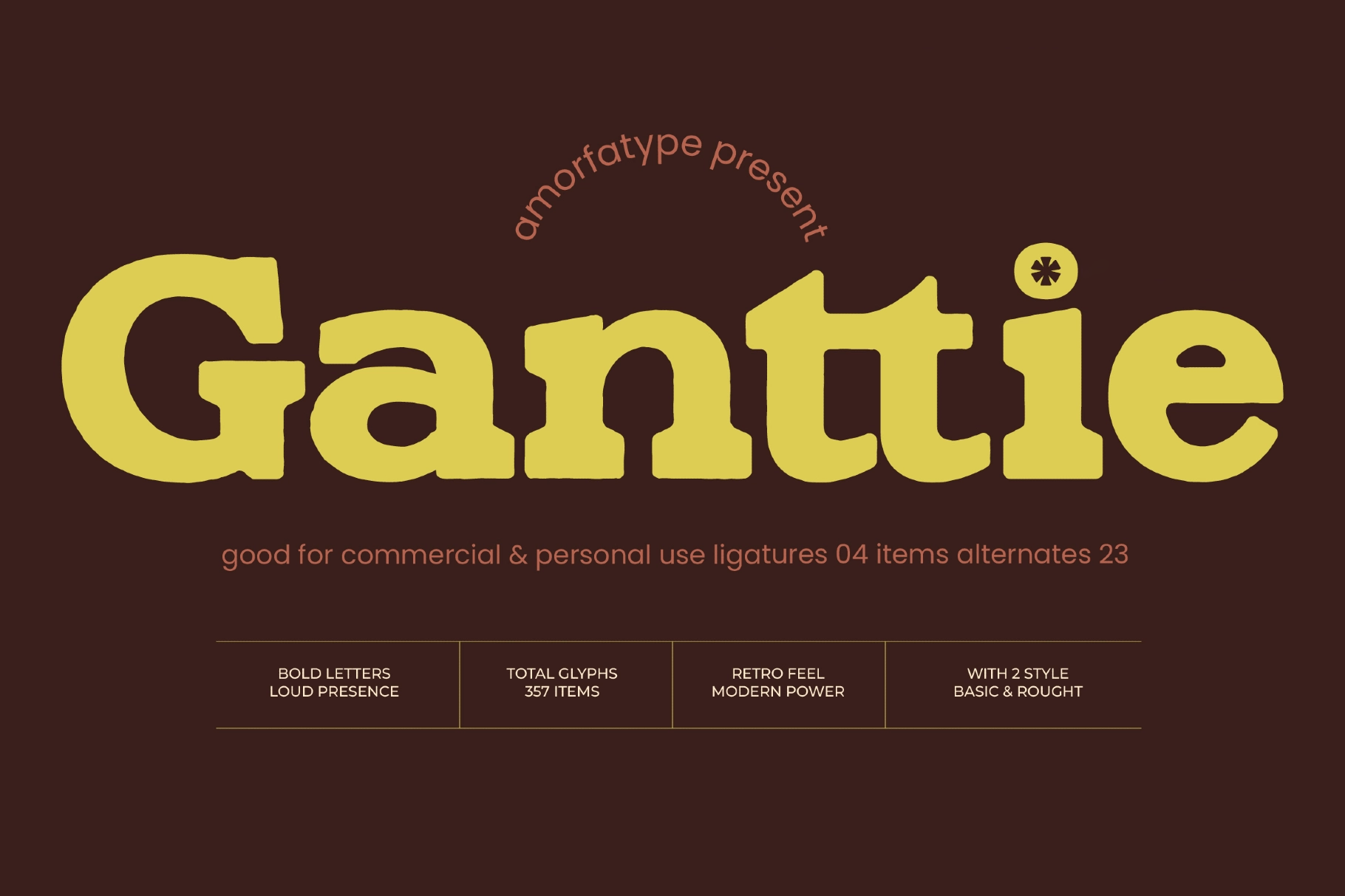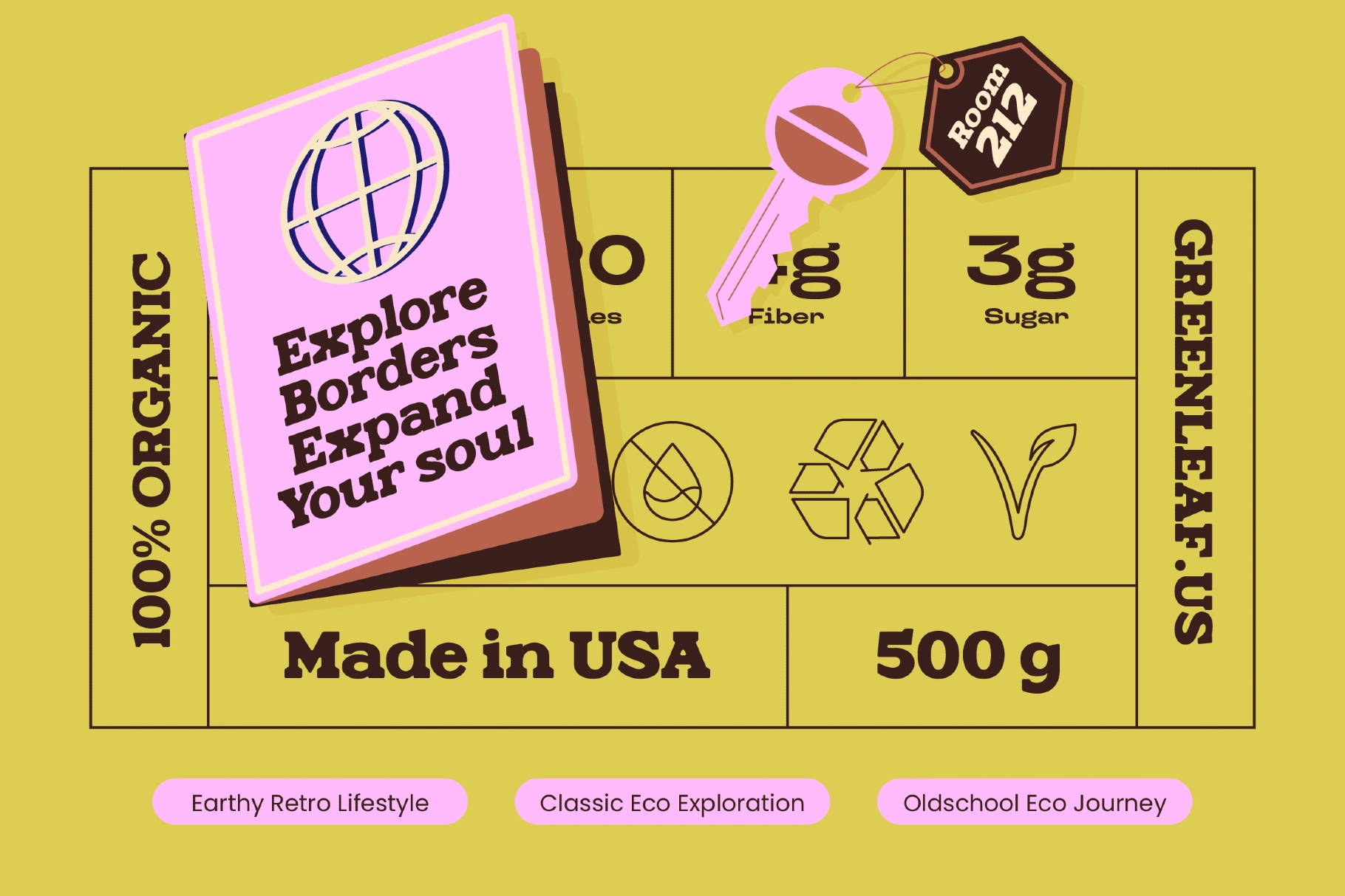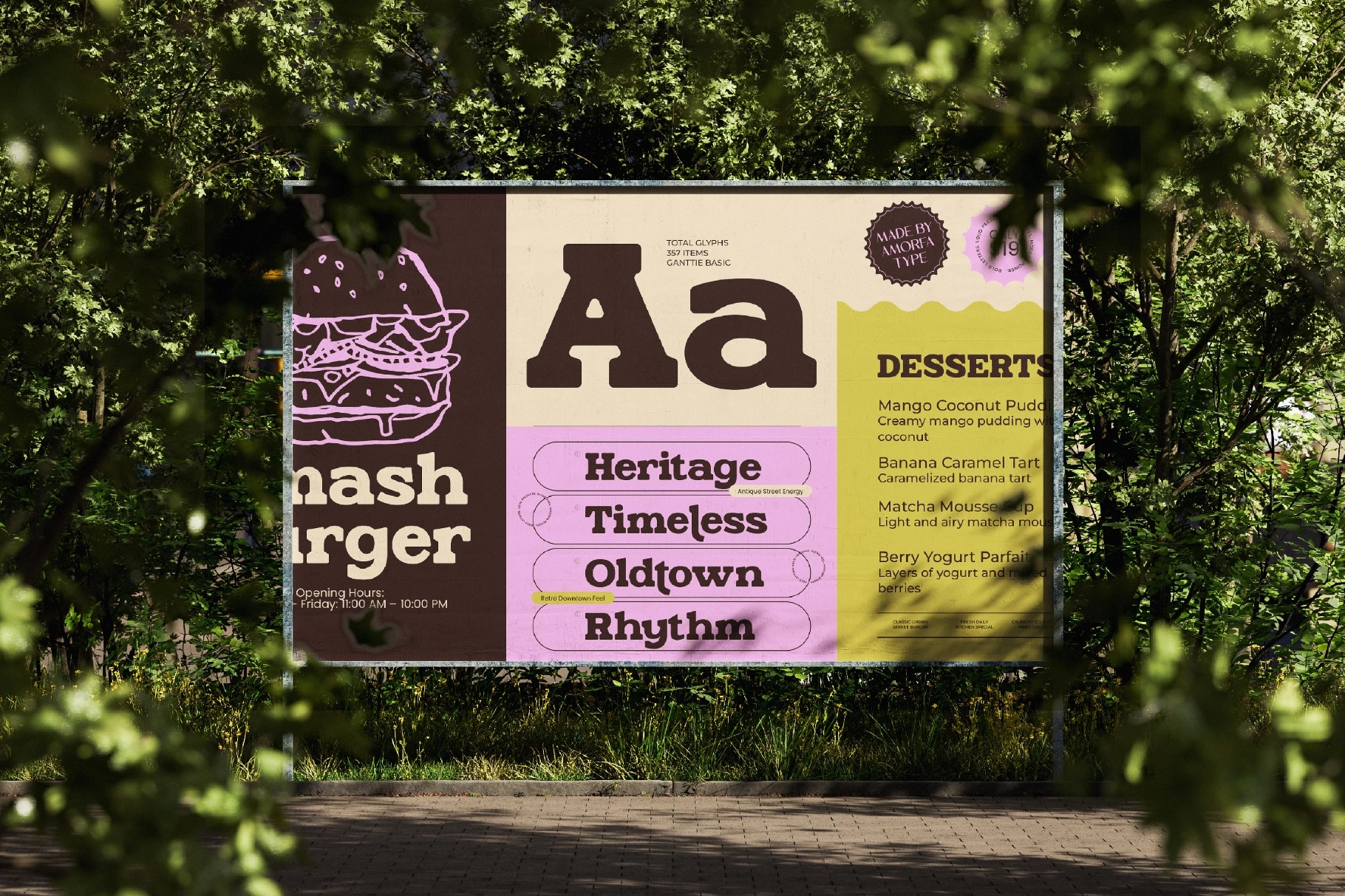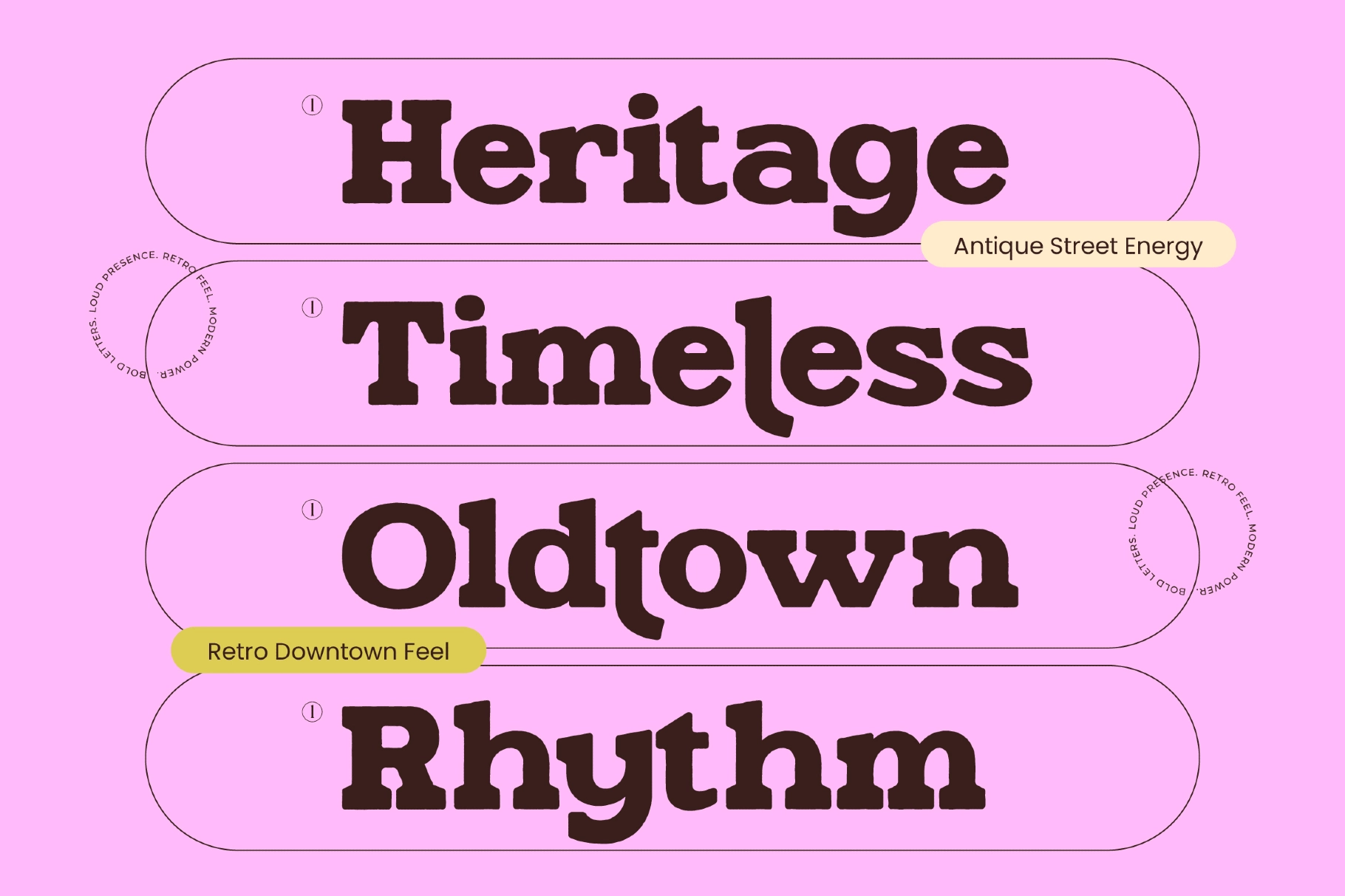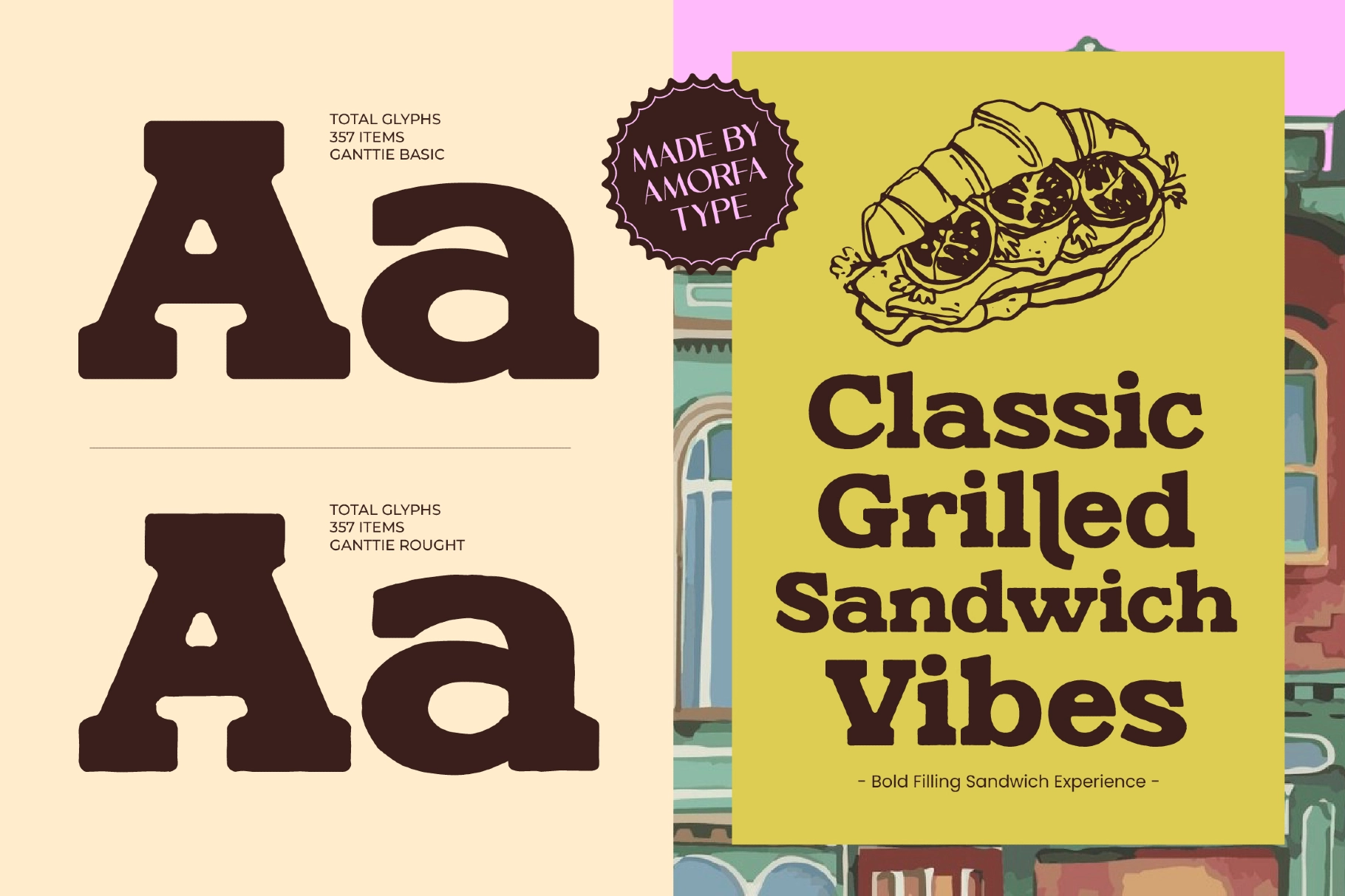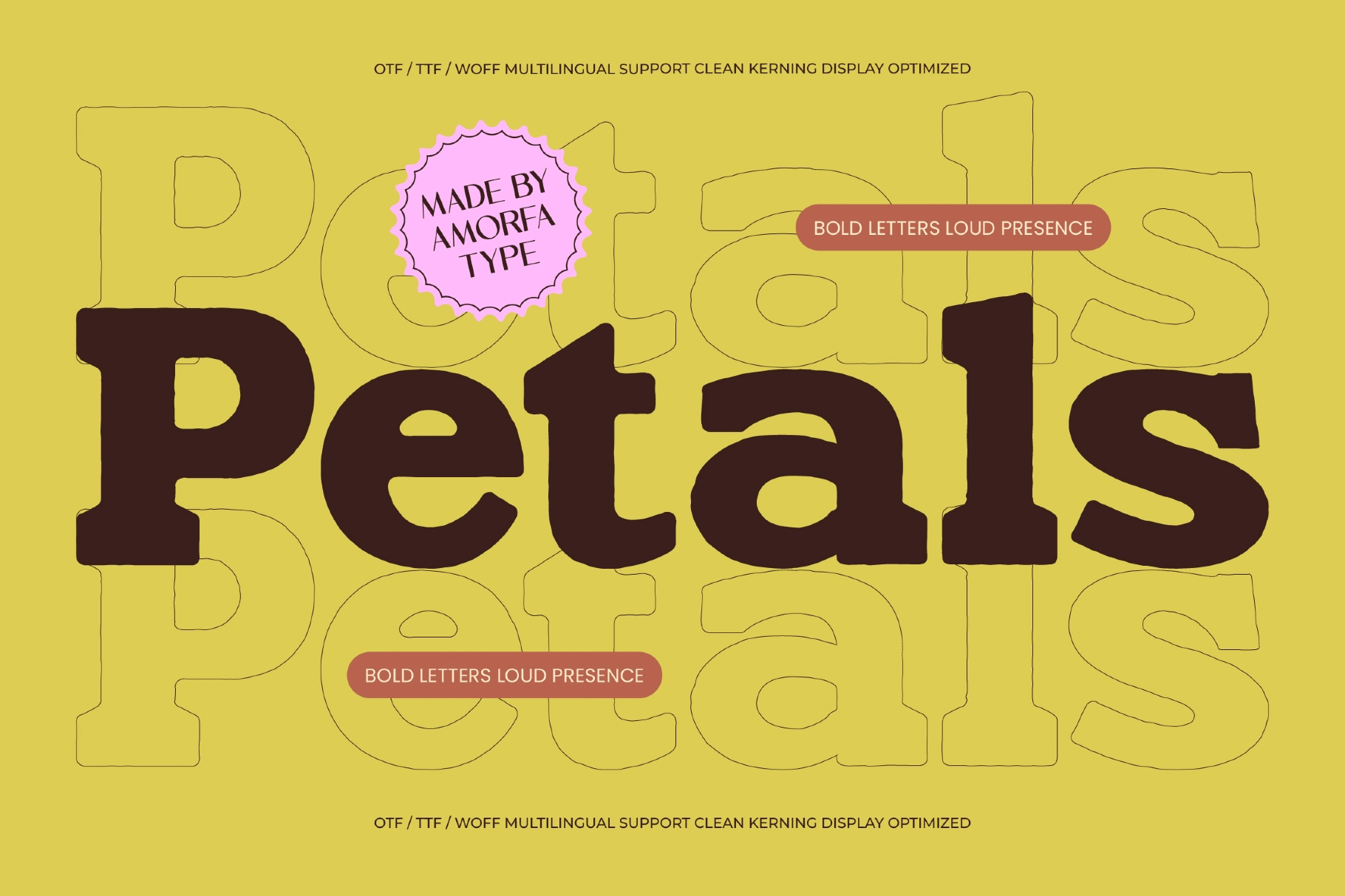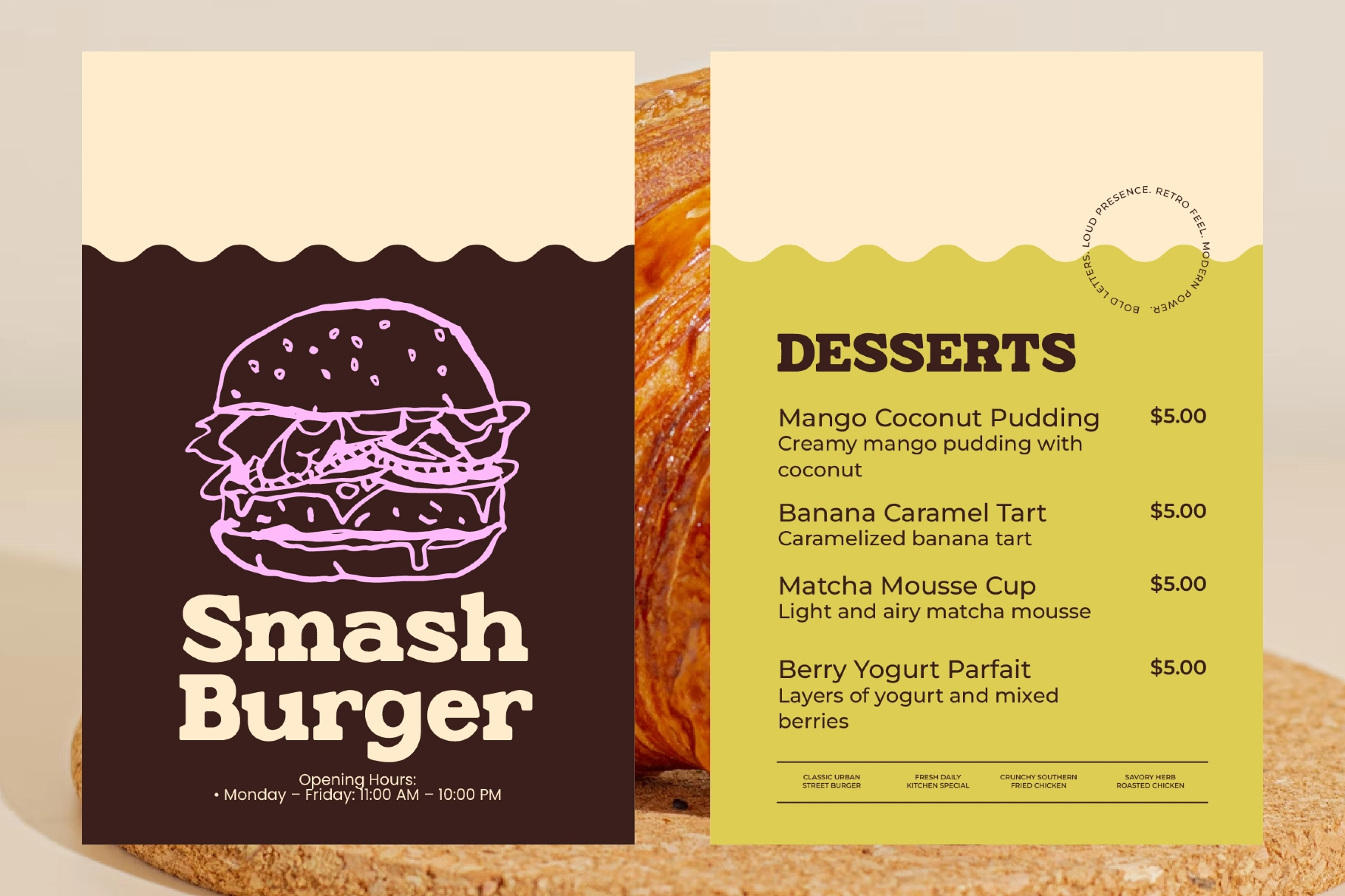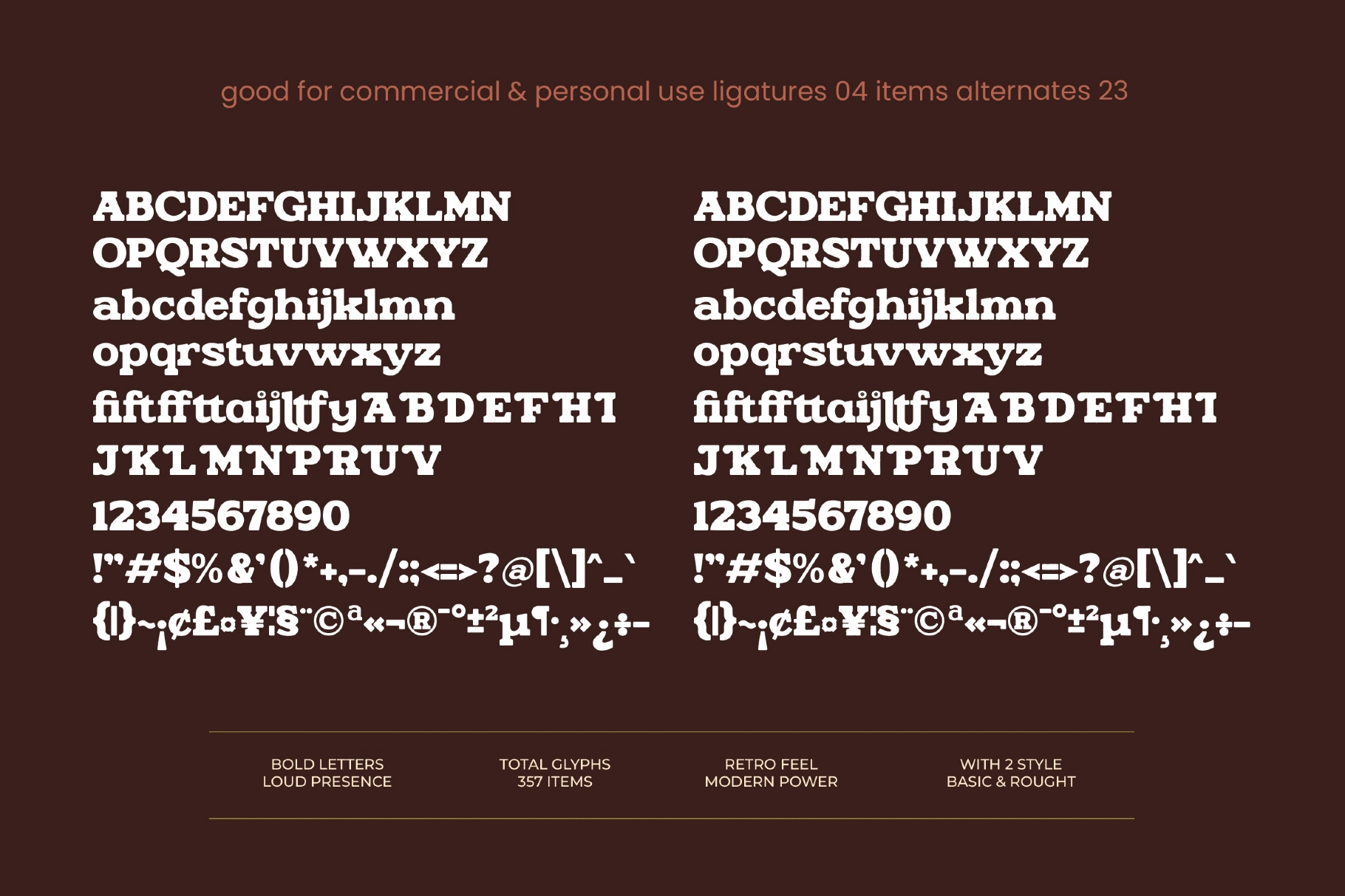
Ganttie - Bold Retro Serif Font
A bold display serif with chunky curves, firm slabs, and an old-shop sign attitude. Its retro character is loud, graphic, and a little unruly, with rounded forms that work well for layouts that need instant presence without pretending to be subtle.
Ganttie comes in Basic and Rough styles, giving the typeface a clean solid option and a worn-edged version for grittier work. Use it for logos, food packaging, café menus, poster headlines, editorial titles, merch graphics, vintage labels, product tags, social media quotes, event branding, book covers, and more.
- 2 styles: Basic, Rough
- Total Glyphs: 357
- 23 alternates